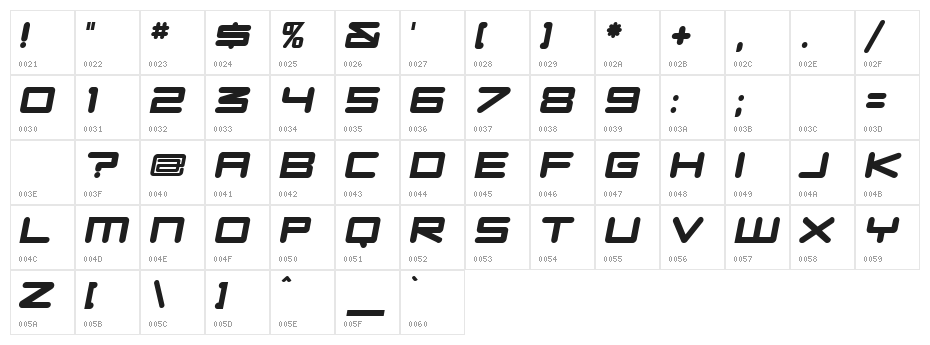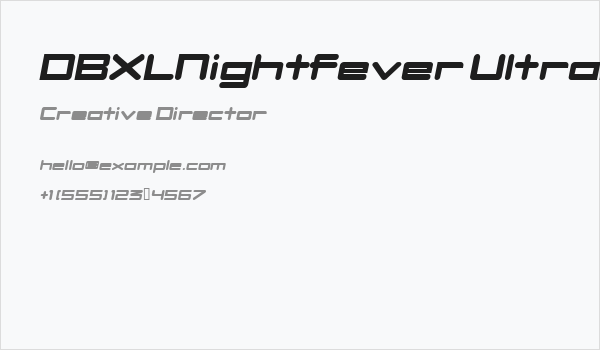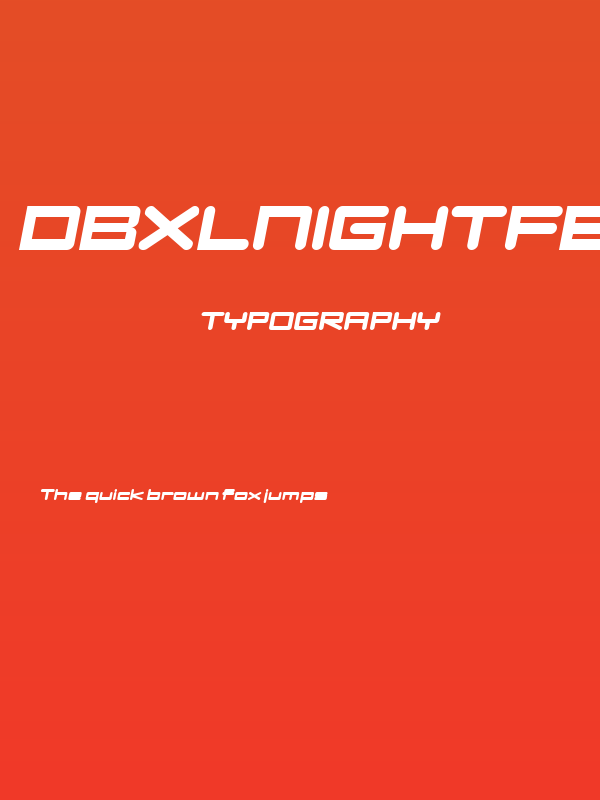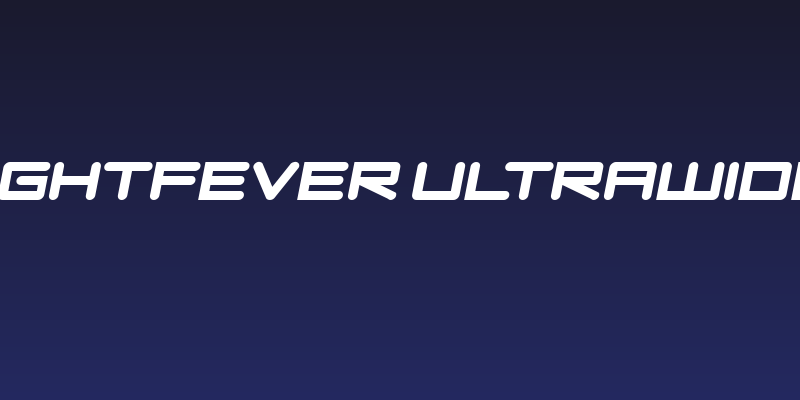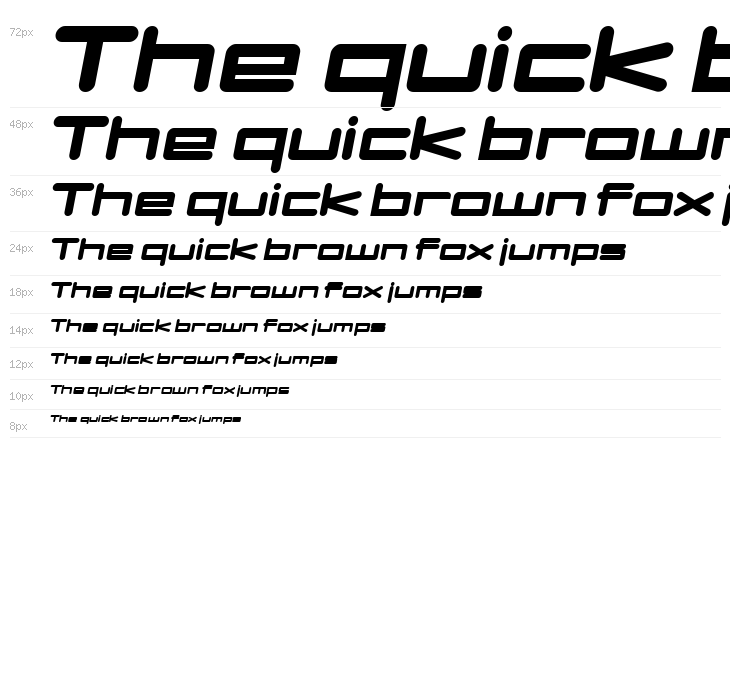
DBXLNightfever UltraWideItalic Font
This font features a futuristic and dynamic design with ultra-wide characters that convey a sense of speed and modernity. The italicized style adds a slanted, forward-moving appearance, enhancing its energetic feel. Each letter is crafted with rounded edges and consistent stroke thickness, giving it a sleek and polished look. The spacing between characters is moderately tight, contributing to its compact and cohesive appearance. The numbers and special characters maintain the same stylistic elements, ensuring uniformity across all glyphs.
| Proposed Projects | Ideal for projects requiring a modern and energetic aesthetic, such as tech branding, sports event posters, or futuristic-themed designs. |